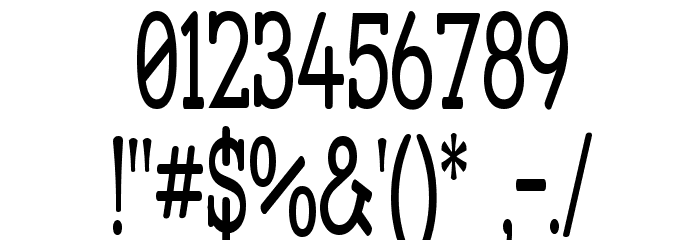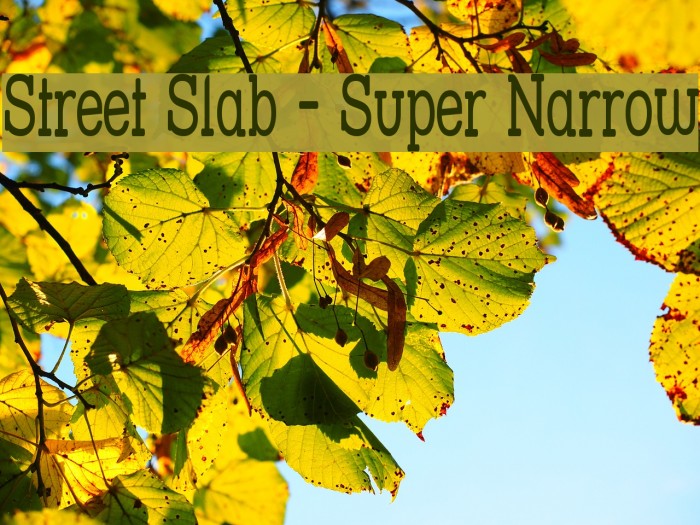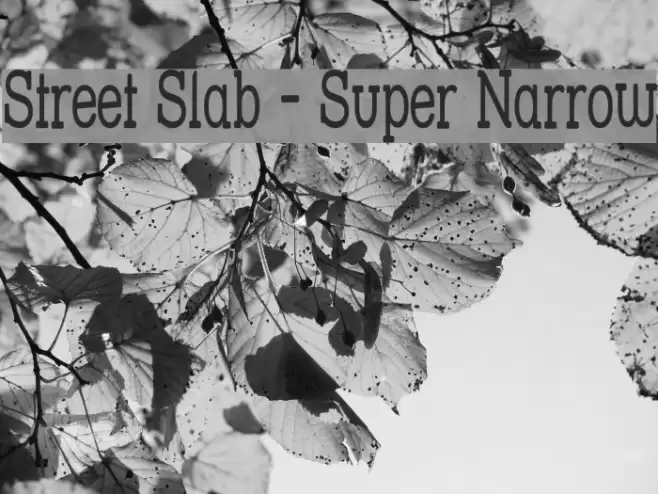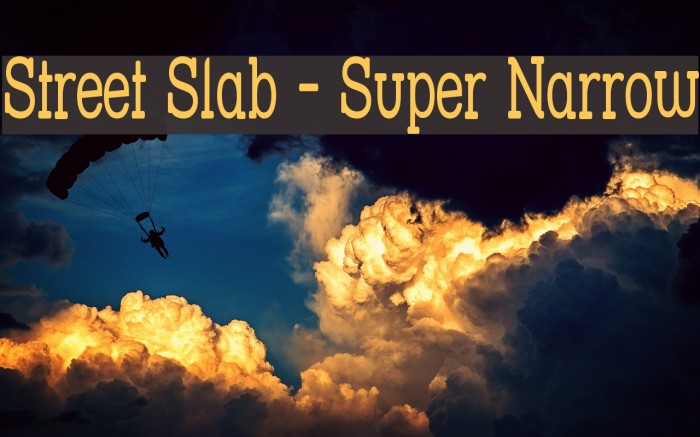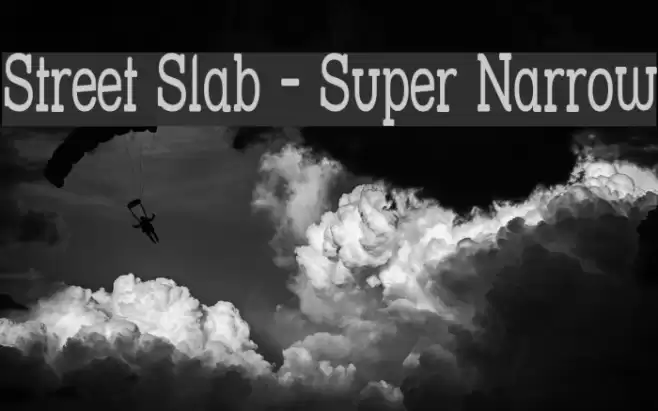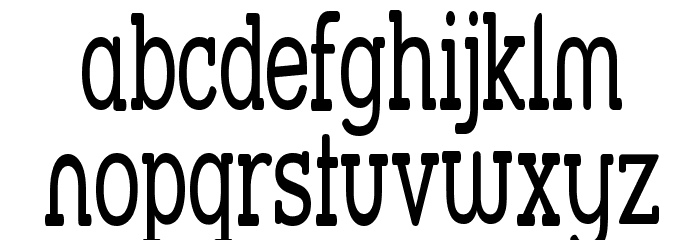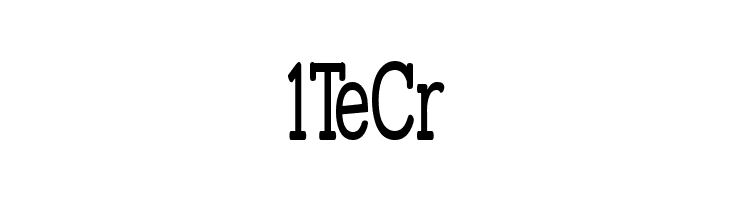
Street Slab - Super Narrow Font
Street Slab - Super Narrow Description
This font features a bold and structured design with slab serif characteristics. The letters are tall and narrow, giving it a condensed appearance. The serifs are prominent and block-like, adding a sense of stability and strength to the typeface. The uppercase and lowercase letters maintain a consistent height, while the numerals are clear and easily distinguishable. Special characters are well-defined, complementing the overall geometric style. This font's design is both modern and functional, making it suitable for various applications.
A bold, condensed slab serif font with a modern and structured design from Uncategorized fonts.
• Proposed Projects: Ideal for headlines, posters, branding, and signage where a strong, impactful presence is needed.
• Width: Condensed
• Contrast: Low
• Overall Style: Modern
• Use Case: Headlines, Logos, Posters